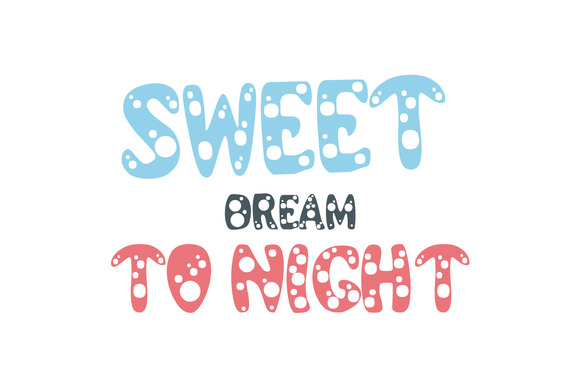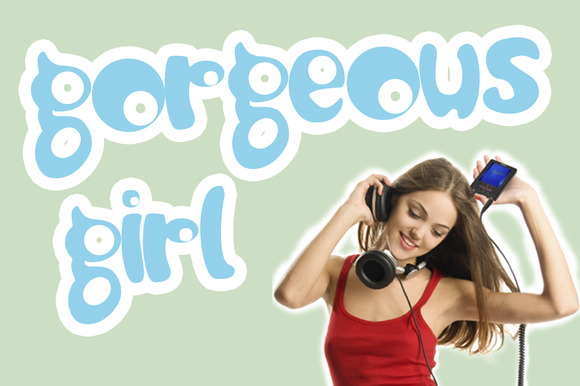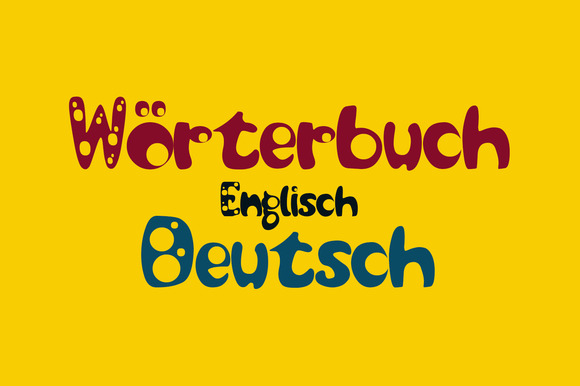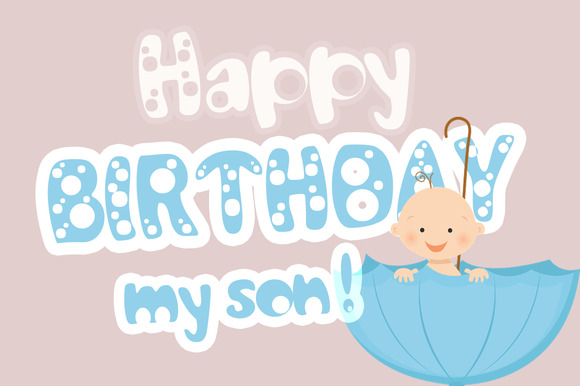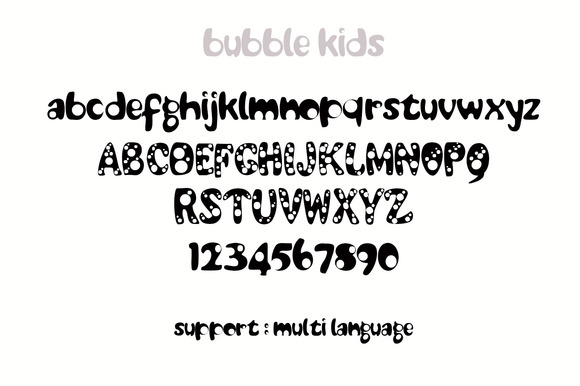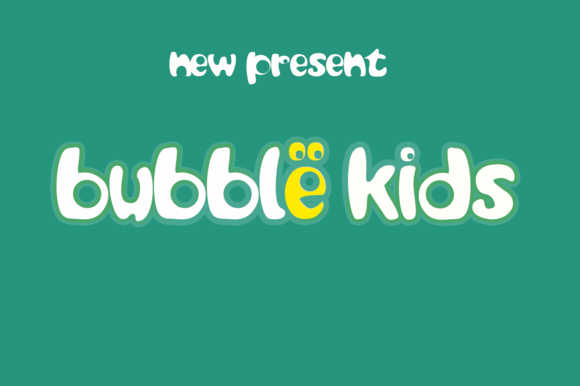
Bubble Kids Font: The Playful and Happy Font for Your Creative Projects
Are you looking for a font that can add a touch of playfulness and humor to your designs? Look no further than the Bubble Kids Font! This delightful font is inspired by the joy of splashing water and is perfect for a variety of creative projects. In this article, we’ll take a closer look at the Bubble Kids Font, its features, and how you can use it to take your designs to the next level.
What is Bubble Kids Font?
Bubble Kids Font is a happy and playful font that features plain and highlighted letters with a humorous style. The font is designed to evoke the feeling of splashing water, making it perfect for designs that require a fun and carefree vibe. The font is highly versatile and can be used for a wide range of purposes, including posters, t-shirts, letterheads, logos, labels, wedding invitations, cards, and more.
Key Features of Bubble Kids Font
- Playful and Happy Design: The Bubble Kids Font features a playful and happy design that is sure to bring a smile to anyone’s face. The font’s humorous style makes it perfect for designs that require a lighthearted touch.
- Plain and Highlighted Letters: The font features both plain and highlighted letters, giving you the flexibility to choose the style that best suits your design.
- Inspired by Splashing Water: The font’s design is inspired by the joy of splashing water, making it perfect for summer-themed designs, water parks, and more.
- Highly Versatile: The Bubble Kids Font can be used for a wide range of purposes, from posters and t-shirts to wedding invitations and cards.
How to Use Bubble Kids Font
The Bubble Kids Font is incredibly easy to use and can be incorporated into your designs in just a few simple steps. Here are some ideas to get you started:
- Posters and Flyers: Use the Bubble Kids Font to create eye-catching posters and flyers for events, promotions, and more.
- T-Shirts and Merchandise: The font is perfect for designing fun and playful t-shirts, hats, and other merchandise.
- Wedding Invitations and Cards: Add a touch of whimsy to your wedding invitations and cards with the Bubble Kids Font.
- Logos and Branding: Use the font to create a fun and playful logo for your business or brand.
Tips for Using Bubble Kids Font
Here are a few tips to keep in mind when using the Bubble Kids Font:
- Pair with Other Fonts: Experiment with pairing the Bubble Kids Font with other fonts to create a unique and eye-catching design.
- Use Bright Colors: The font looks best with bright and bold colors, so don’t be afraid to get creative with your color palette.
- Keep it Simple: While the font is playful and fun, it’s best to keep your design simple and easy to read.
The Bubble Kids Font is a fun and playful font that is perfect for designers and crafters looking to add a touch of whimsy to their designs. With its happy and humorous style, this font is sure to bring a smile to anyone’s face. Whether you’re designing posters, t-shirts, or wedding invitations, the Bubble Kids Font is a great choice. So why not give it a try and see how it can take your designs to the next level?
With its highly versatile design and easy-to-use format, the Bubble Kids Font is a must-have for any designer or crafter looking to add a little fun and playfulness to their projects. So go ahead, get creative, and have fun with the Bubble Kids Font!